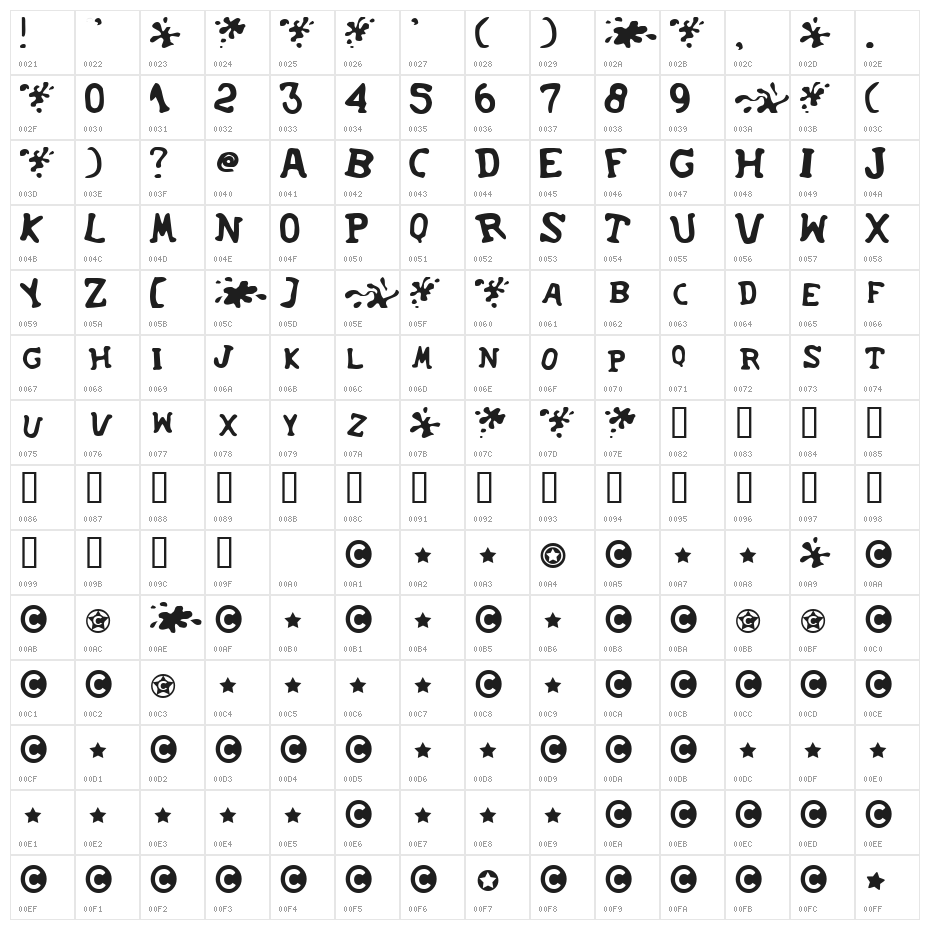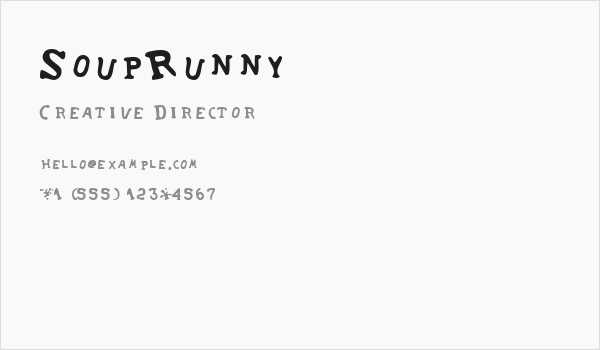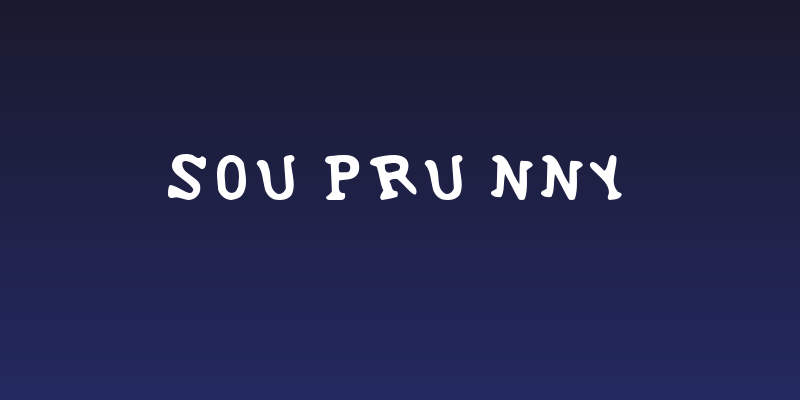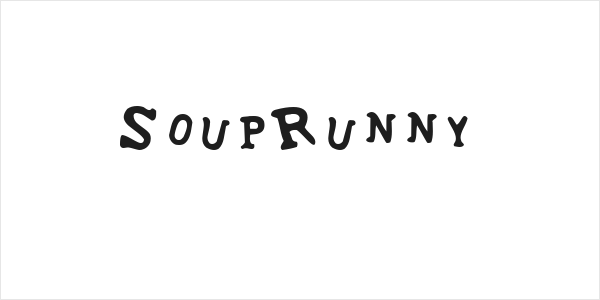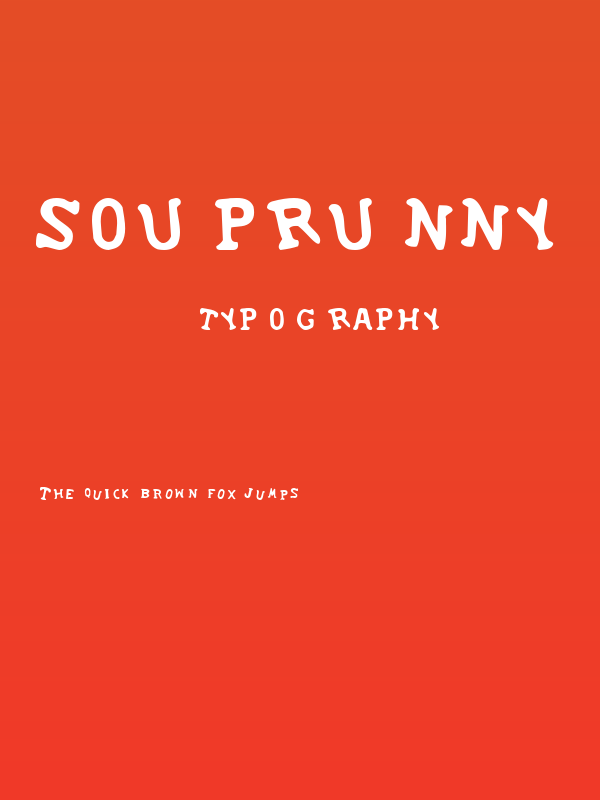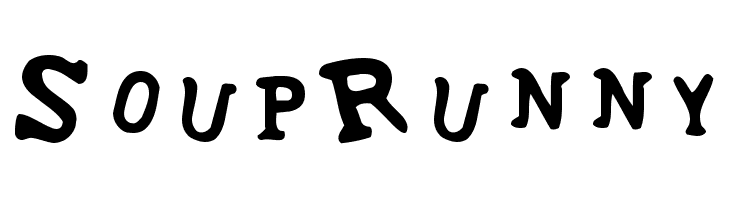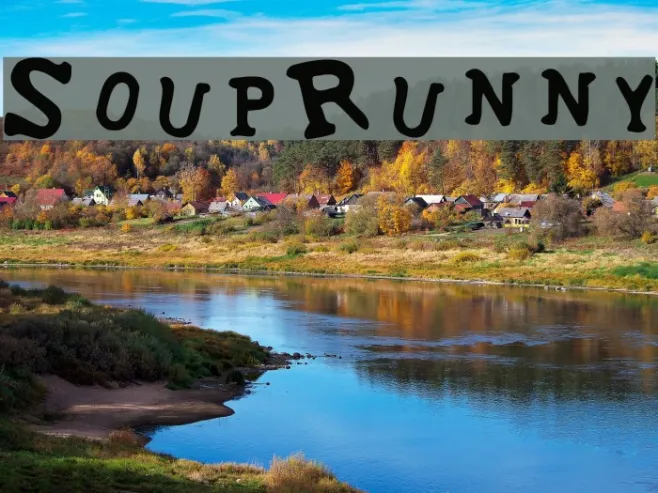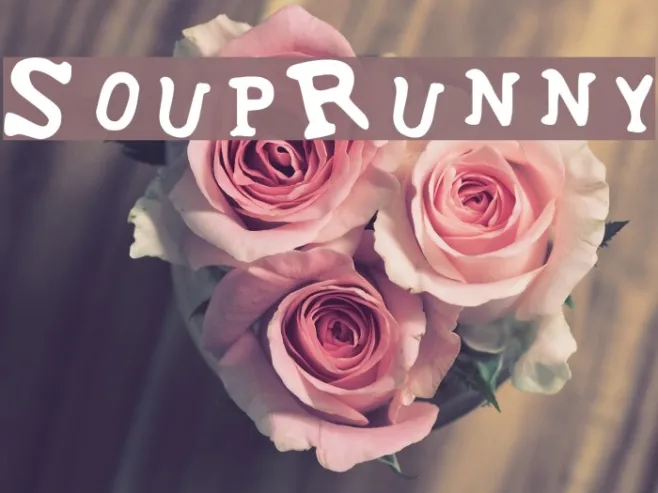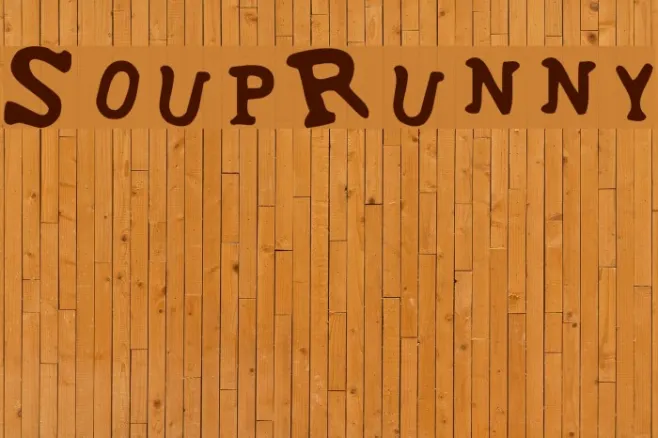
SoupRunny Font
SoupRunny Description
This playful and whimsical font features a unique, hand-drawn style with irregular, wavy lines that give it a fluid and dynamic appearance. The characters are bold and slightly distorted, resembling a liquid or melting effect, which adds to its quirky charm. The uppercase and lowercase letters maintain a consistent style, with rounded edges and varying stroke widths that create a sense of movement. The numbers and special characters follow the same playful design, making them perfect for creative and informal projects. This font's distinctive style makes it stand out, adding a touch of fun and creativity to any design.
| Overall Style | Whimsical, Playful |
| Proposed Projects | Ideal for children's books, playful branding, party invitations, and creative posters. |